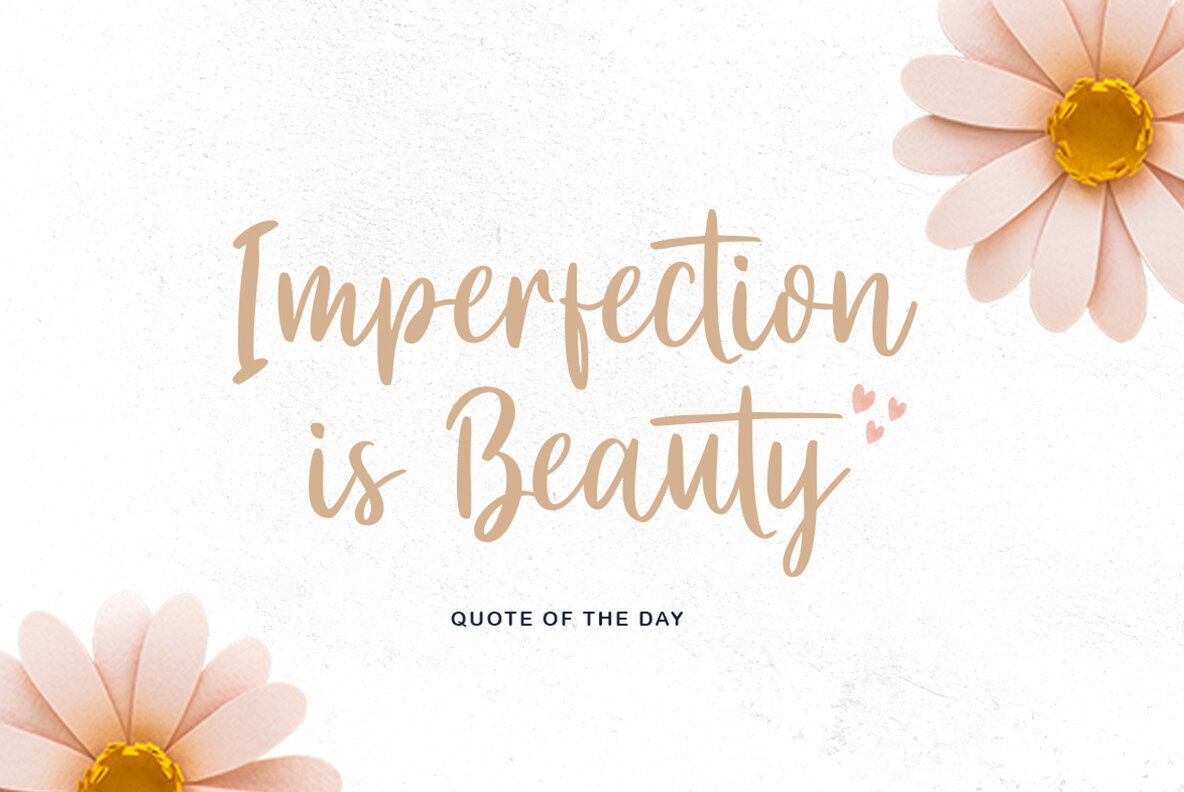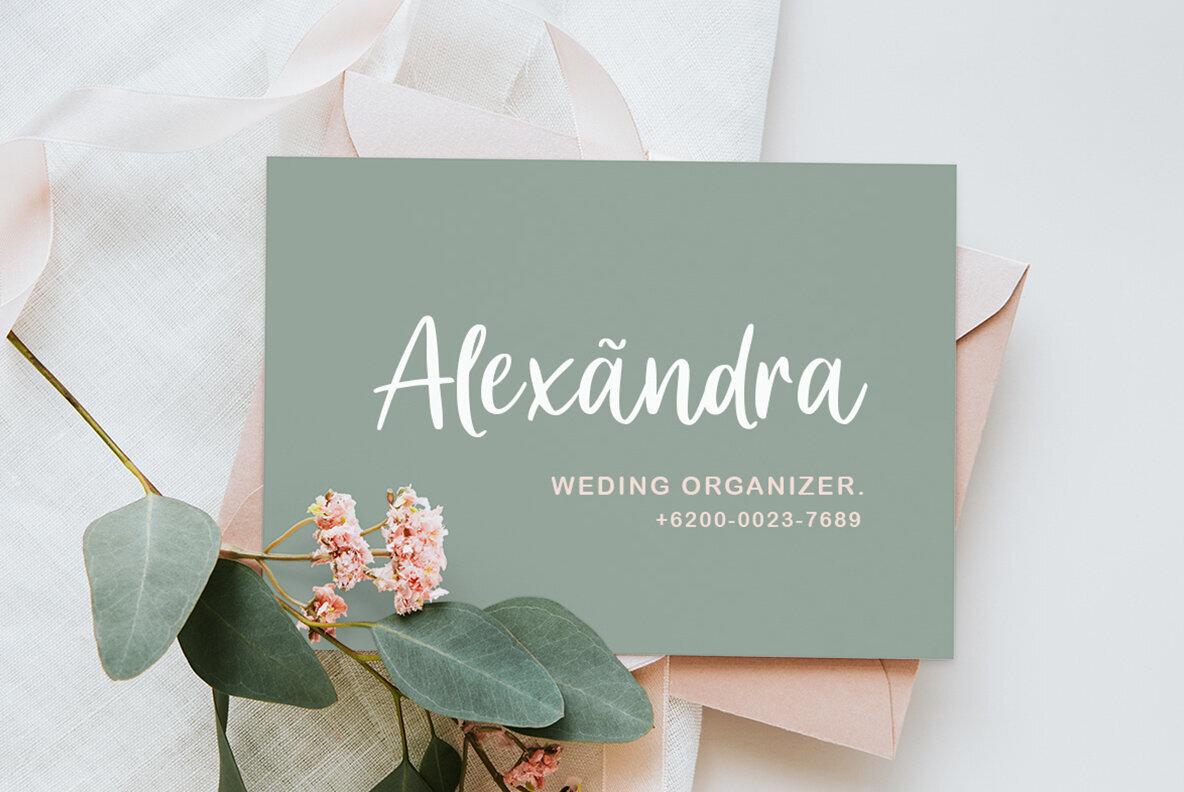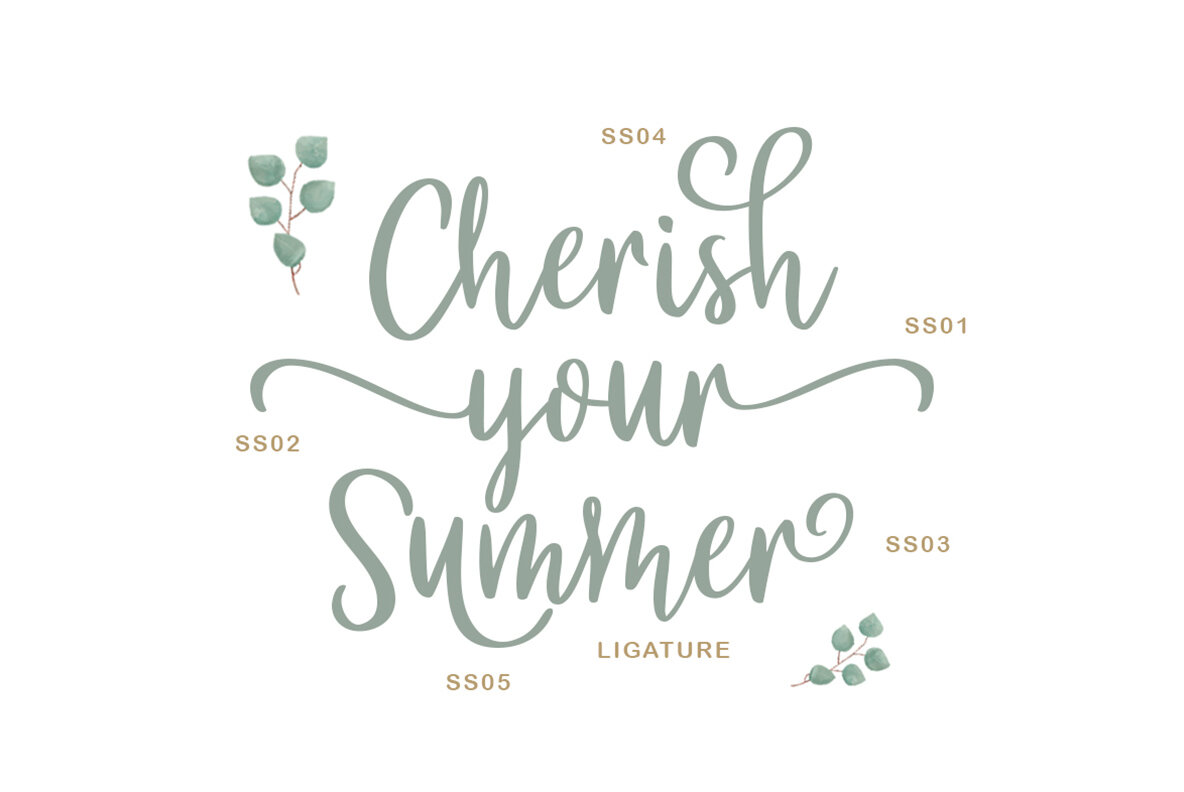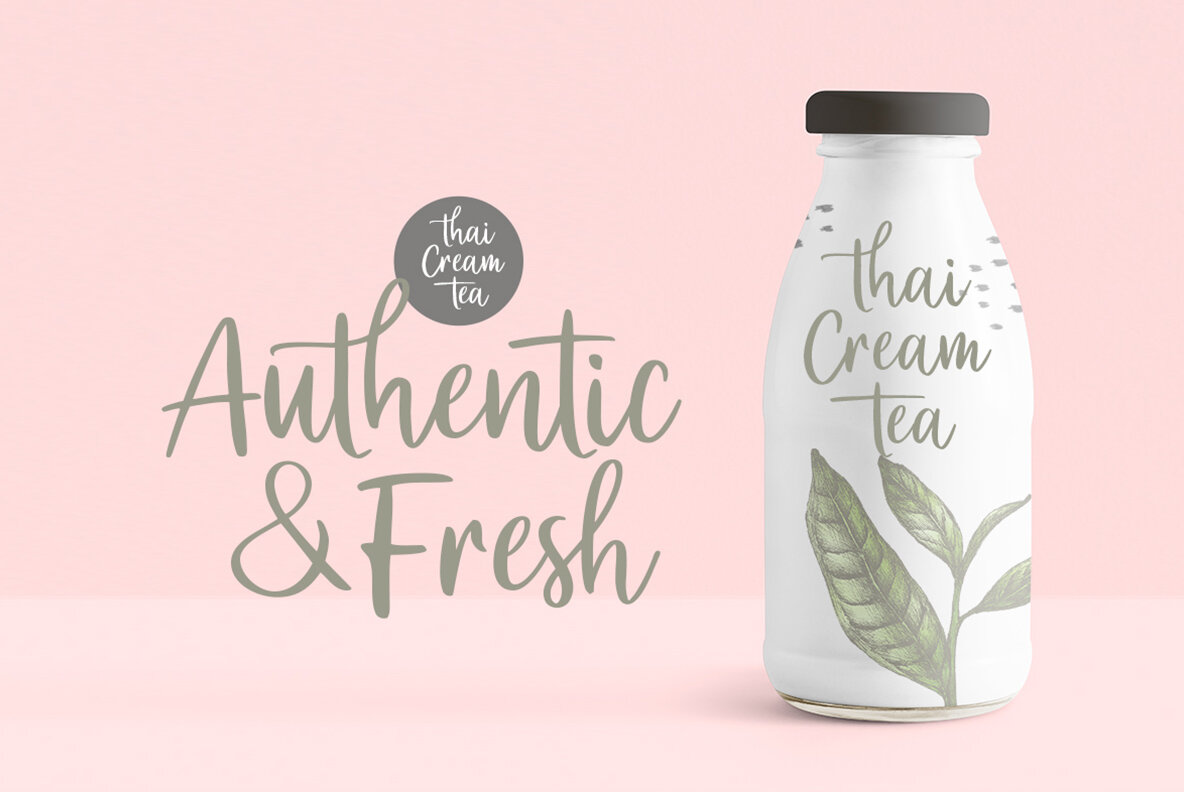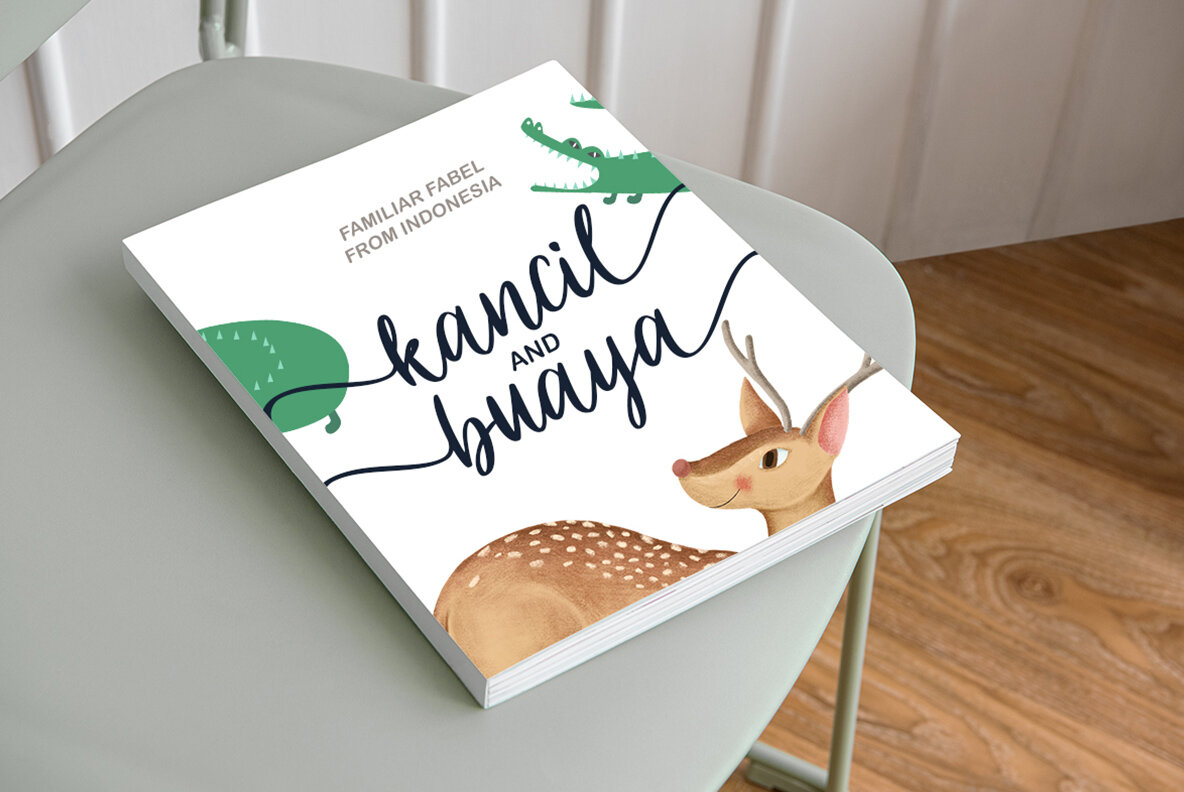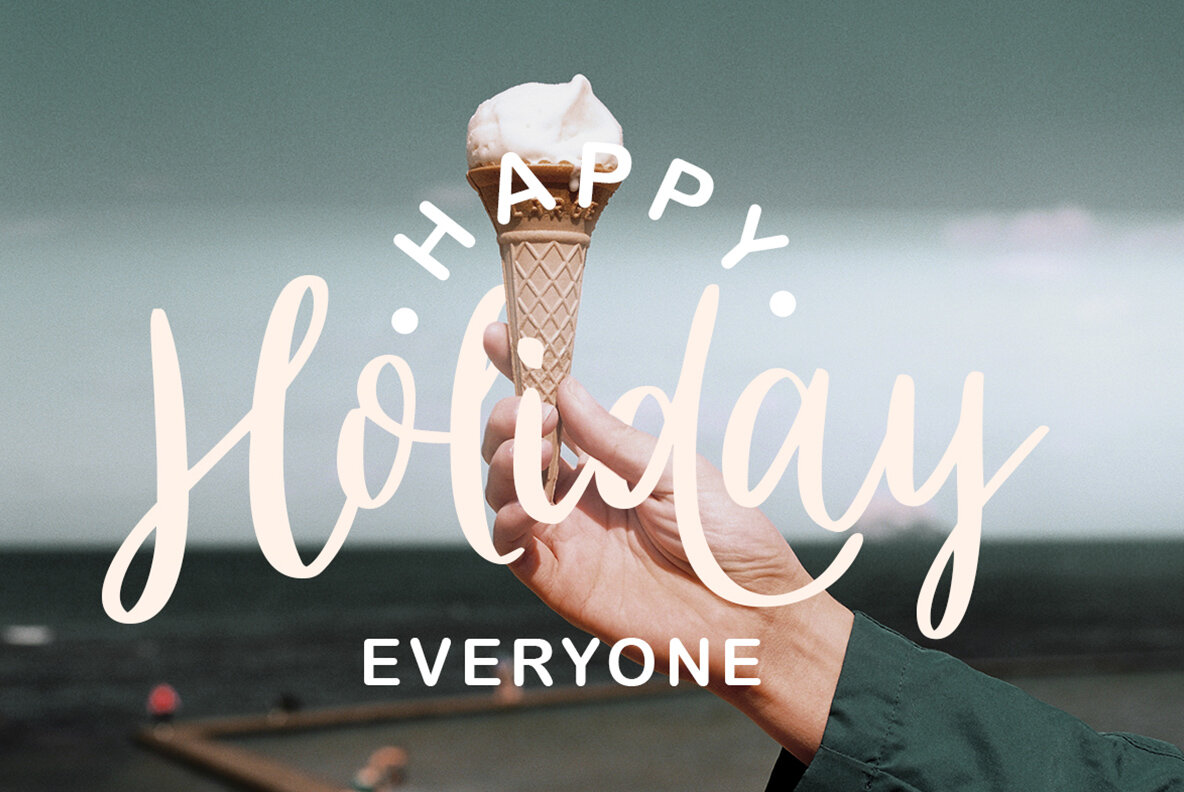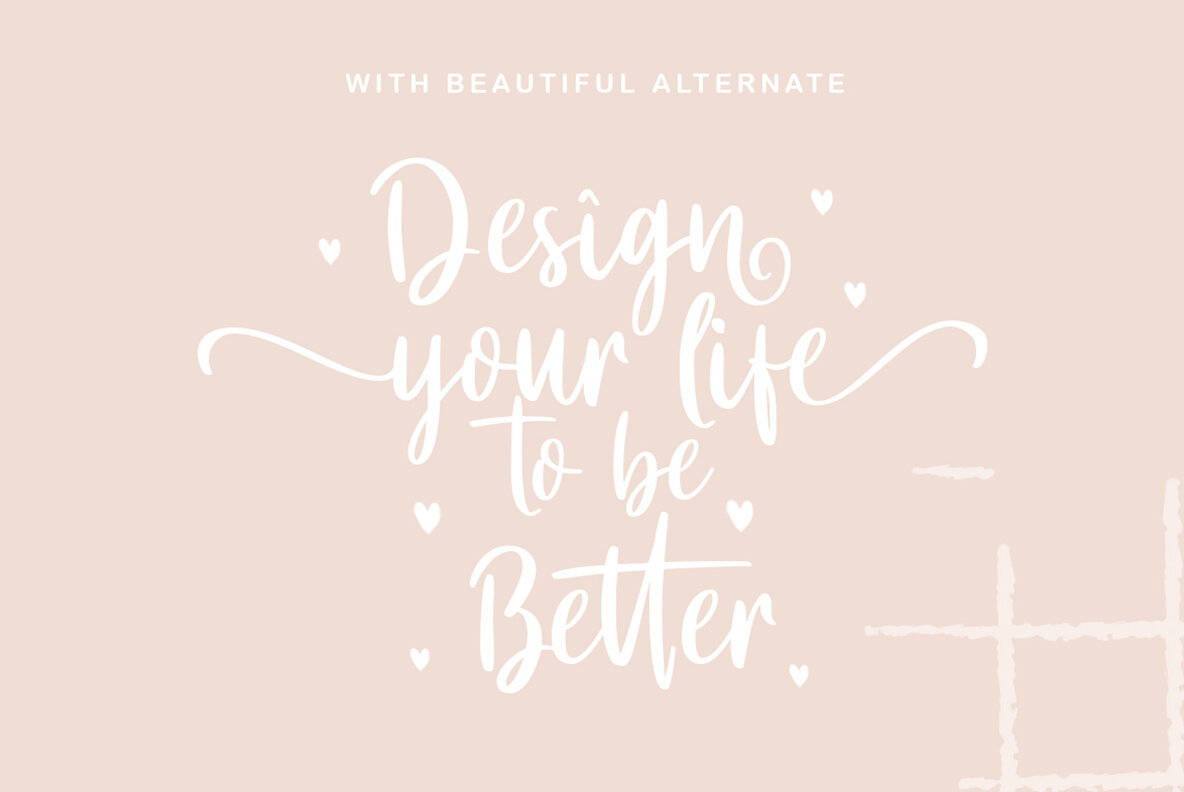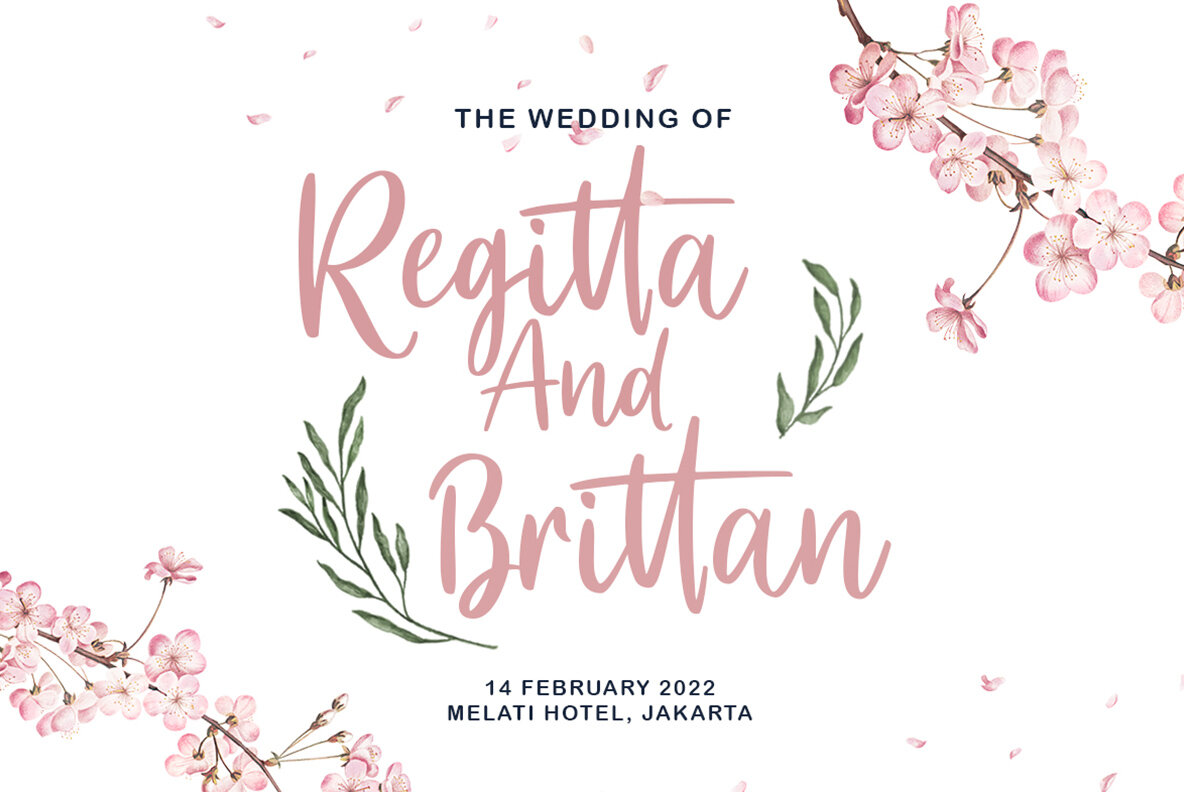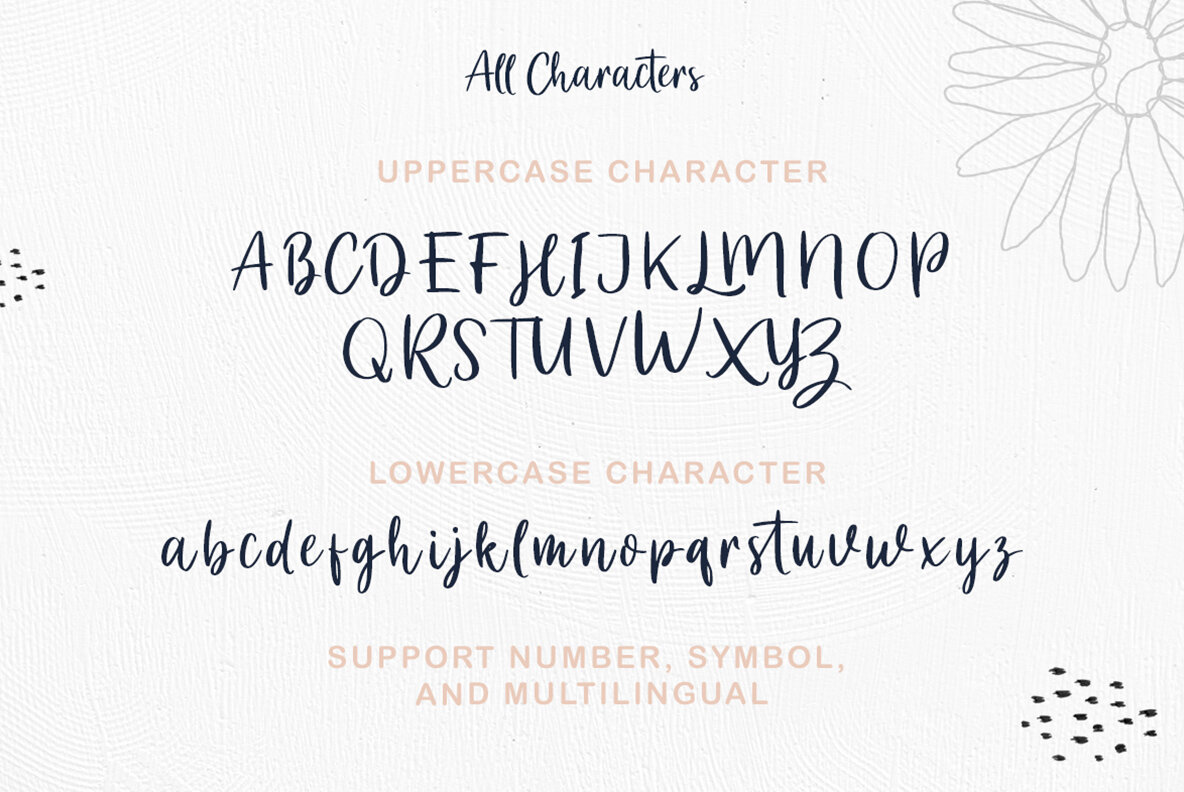
Renedetta Font
Renedetta Regular
Renedetta is a lovely script font with modern touch. This font will suitable for you who want to use for various purposes, such as headline, wedding invitation, logotype, apparel, invitation, letterhead, branding, packaging, advertising, label, news, posters, and more.